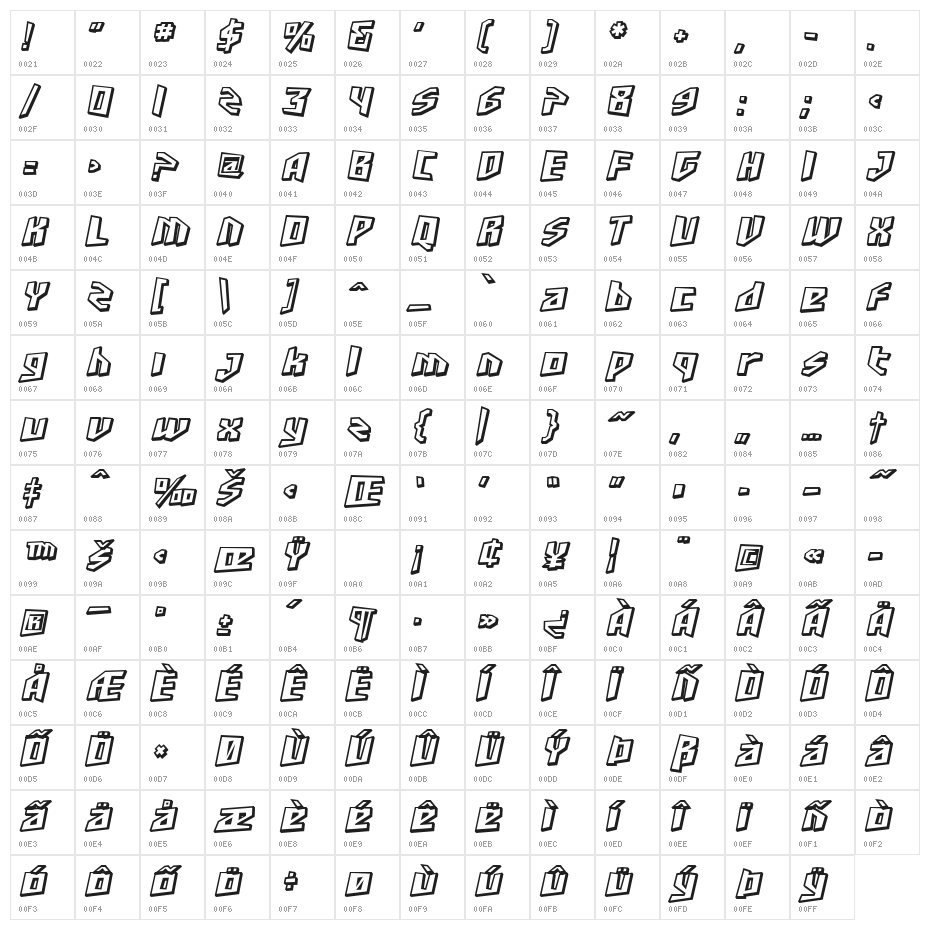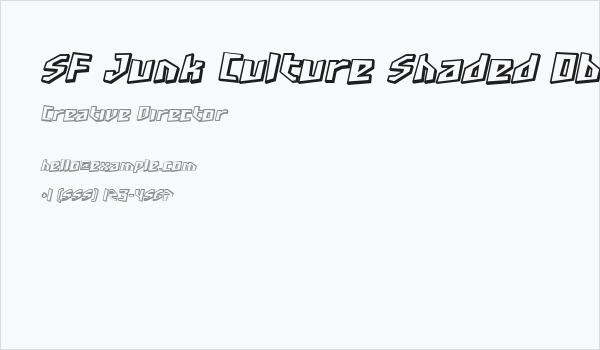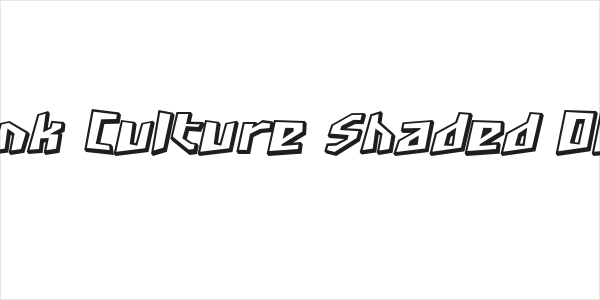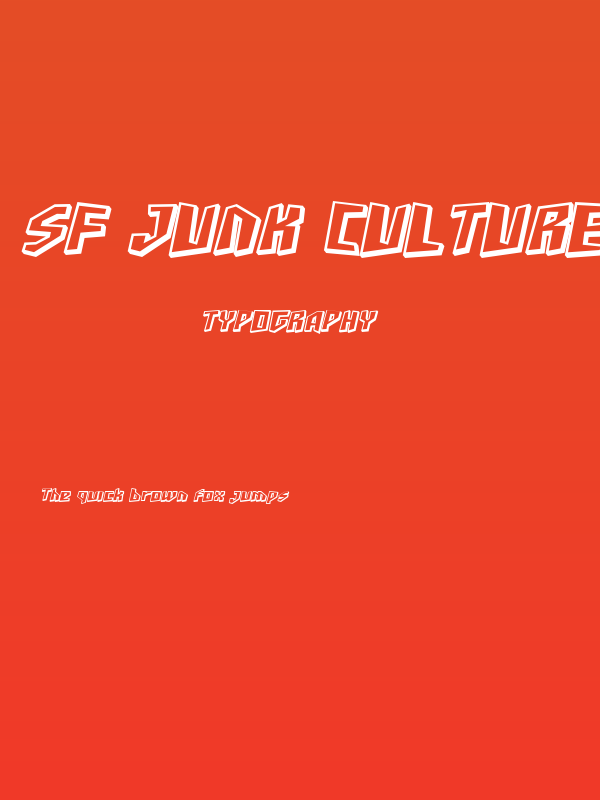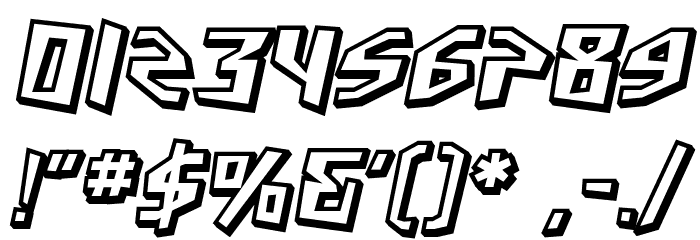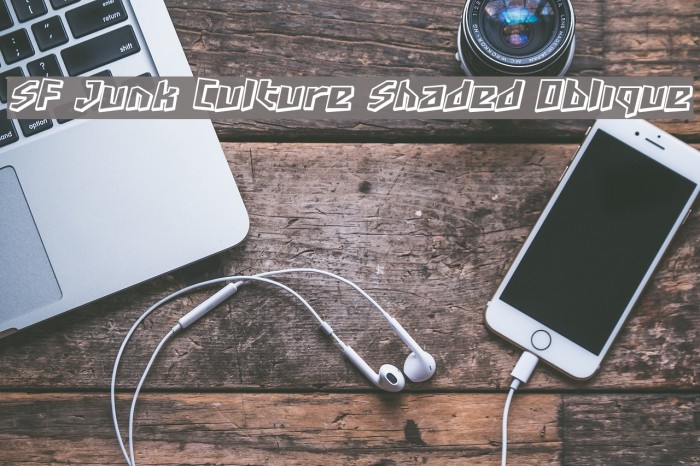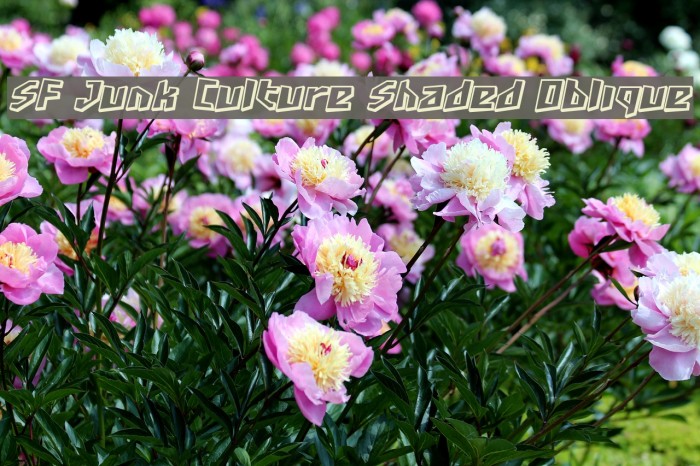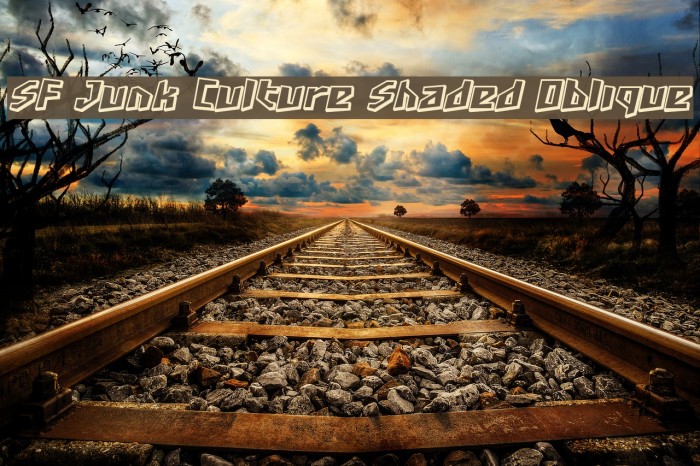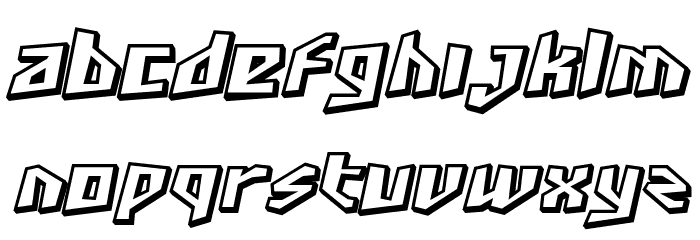
SF Junk Culture Shaded Oblique Font
SF Junk Culture Shaded Oblique Description
This font features a bold, dynamic style with a shaded oblique design that gives it a three-dimensional appearance. The characters are angular and geometric, with a strong emphasis on the diagonal lines that create a sense of movement and energy. The uppercase and lowercase letters maintain a consistent style, while the numerals and special characters complement the overall aesthetic. The bold outlines and shading add depth, making it ideal for eye-catching designs. The font's unique style makes it suitable for projects that require a modern and edgy look.
| Proposed Projects | Ideal for posters, logos, video game graphics, and any design needing a bold, modern touch. |